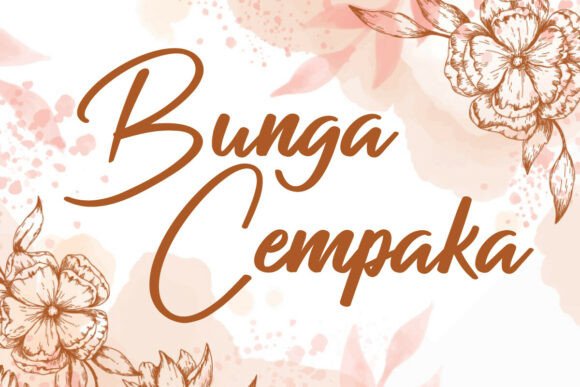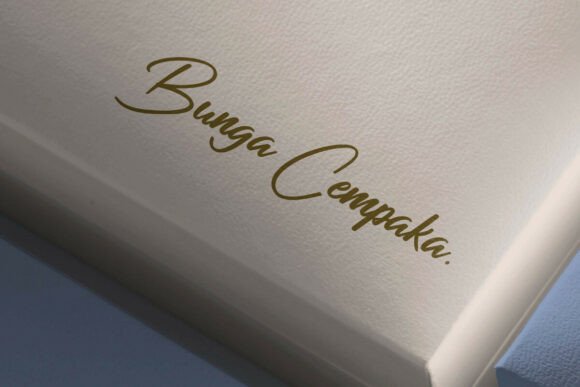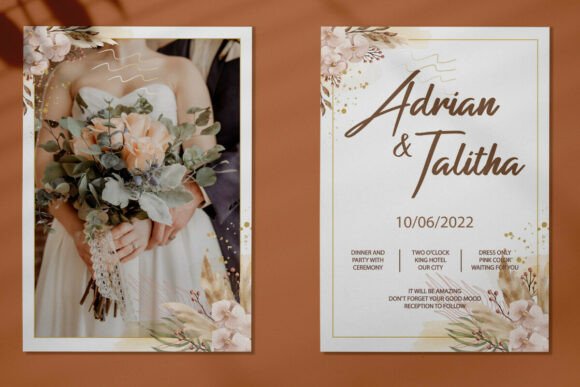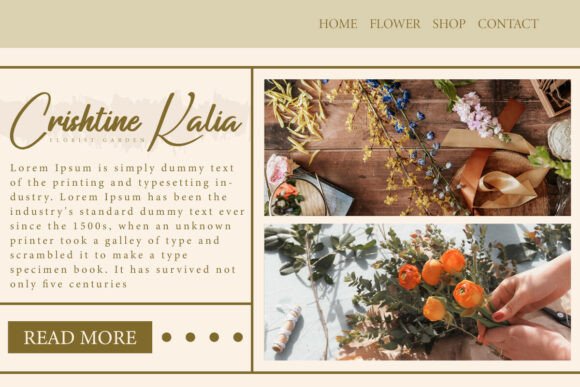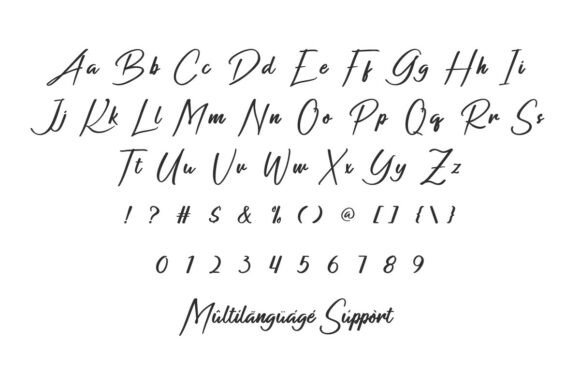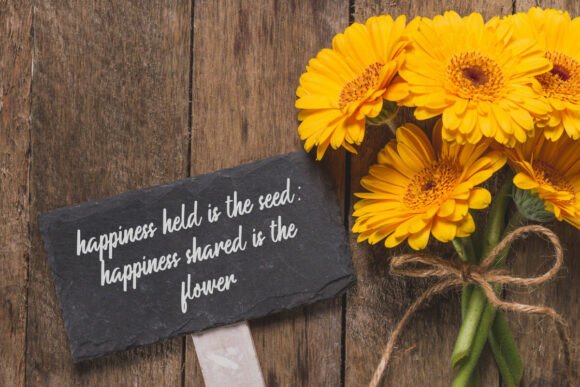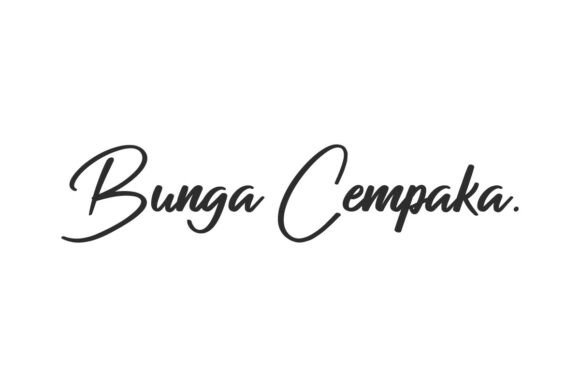
Celebrating Simplicity with Bunga Cempaka Font
Have you ever been in the middle of a design project, and suddenly, you’re stuck on finding the perfect font? I recall a recent experience where I was working on a branding project for a wellness client, and I just couldn’t find a script font that felt right. That was until I stumbled upon the Bunga Cempaka font. Its clean, approachable design immediately resonated with me, and I knew I had found the perfect fit. In this article, we’ll dive into what makes Bunga Cempaka a top choice for modern storytelling, its versatility, and how to make the most of its features.
A Closer Look at Bunga Cempaka
The Bunga Cempaka font is a beautiful, clean script designed to bring simplicity and clarity to your designs. Its smooth, legible flow makes it perfect for a variety of applications, from blog headers and personal branding to daily social media graphics.
What I Love About Bunga Cempaka
- ✨ Clean and Approachable Design: Bunga Cempaka’s design is both elegant and approachable, making it perfect for a wide range of projects.
- ✅ High Versatility: This font pairs easily with both minimal sans-serifs and classic serifs, giving you endless possibilities for design combinations.
- 💡 PUA Encoding: With PUA encoding included, all special characters and decorative elements are easily accessible without additional software.
- 📝 Legible Flow: The font’s smooth flow ensures that your text remains clear and readable, even at smaller sizes.
While Bunga Cempaka is an excellent font, there are a few minor considerations to keep in mind:
- ⚠️ Glyph Overload: With so many glyphs and special characters available, it can be overwhelming to navigate. Take some time to familiarize yourself with the font’s features.
- 🤔 Stylistic Limitations: While Bunga Cempaka is incredibly versatile, it may not be the best fit for highly formal or traditional projects. Consider your project’s tone and audience when choosing a font.
The Story Behind Bunga Cempaka
The Bunga Cempaka font was inspired by the beauty of simplicity and the elegance of traditional scripts. Its creator aimed to craft a font that would be both functional and beautiful, perfect for modern storytelling. The result is a clean, approachable script that resonates with designers and audiences alike.
Q: What type of projects is Bunga Cempaka best suited for?
Bunga Cempaka is incredibly versatile and can be used for a wide range of projects, including blog headers, personal branding, social media graphics, wellness branding, and lifestyle projects.